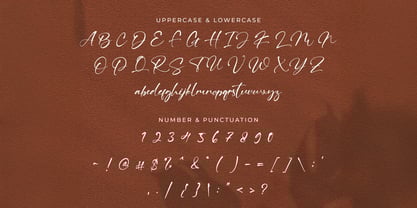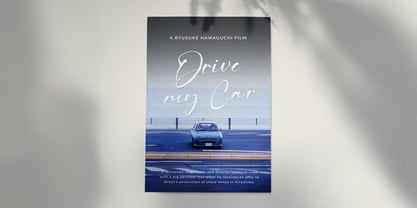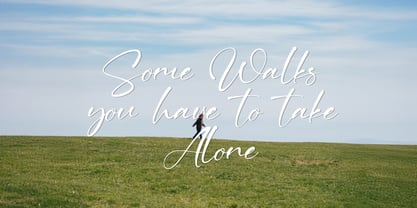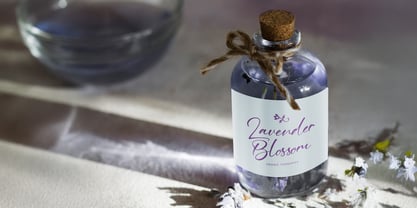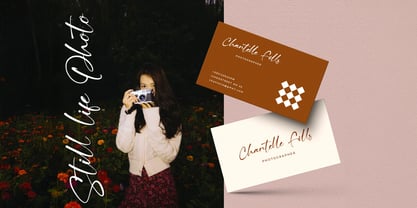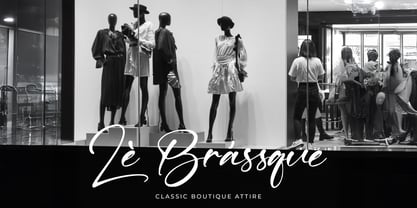
Ving Winston
by Stringlabs Creative Studio
The Ving Winston Font Family was designed by Virgiawan Listanto and published by Stringlabs Creative Studio. Ving Winston contains 1 styles.
Ving Winston is a refined signature font crafted with smooth strokes and natural handwritten elegance. Its flowing curves and stylish details bring a personal yet professional touch, making it perfect for branding, logos, invitations, wedding stationery, photography watermarks, and social media designs. With its modern sophistication and authentic handwritten feel, Ving Winston adds charm, exclusivity, and timeless beauty to every project you create.